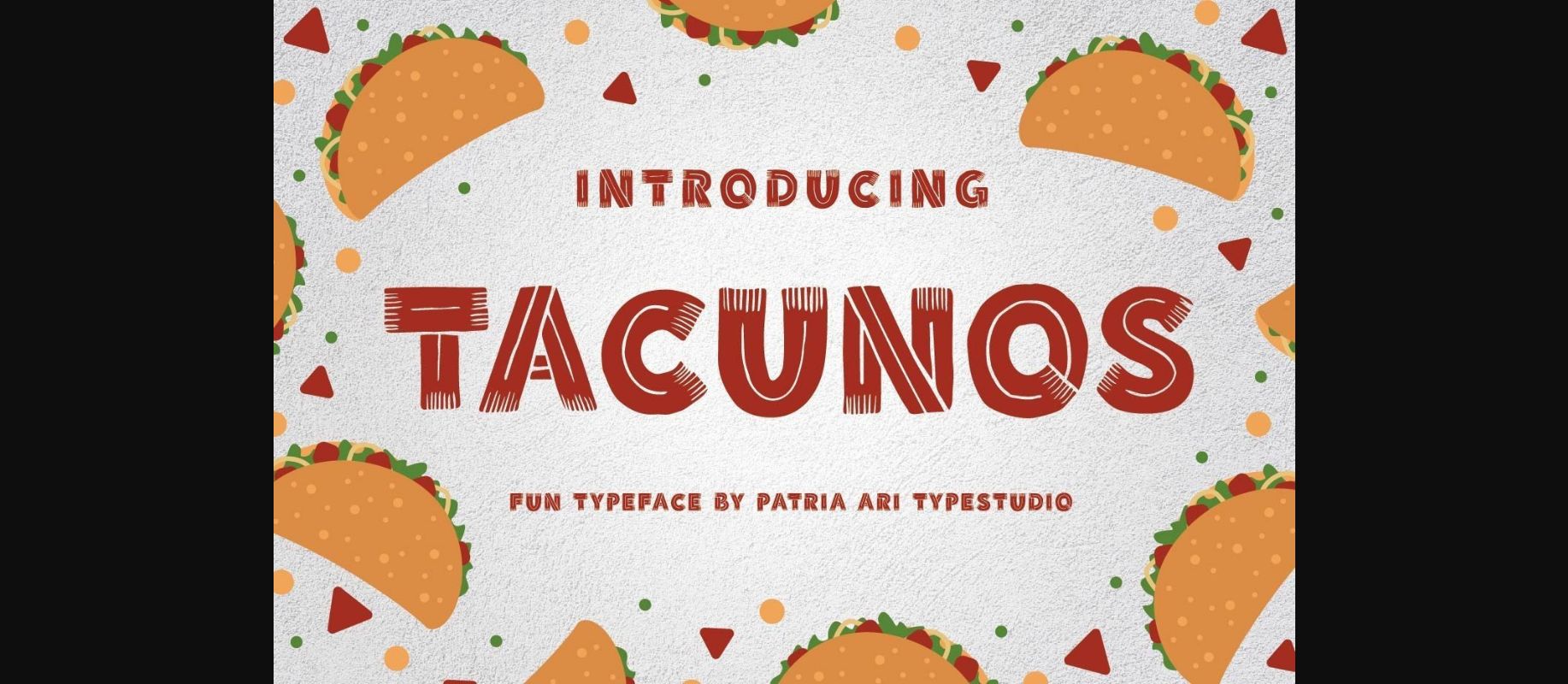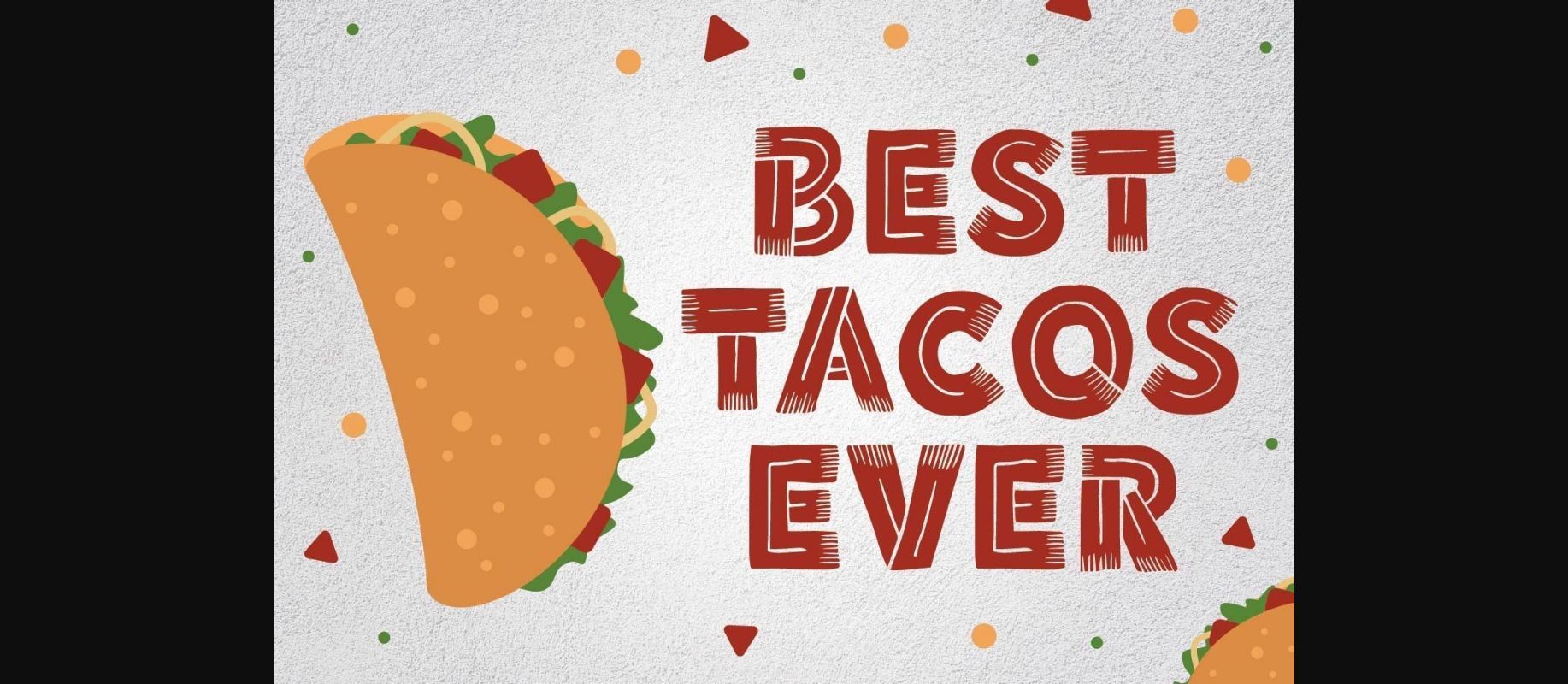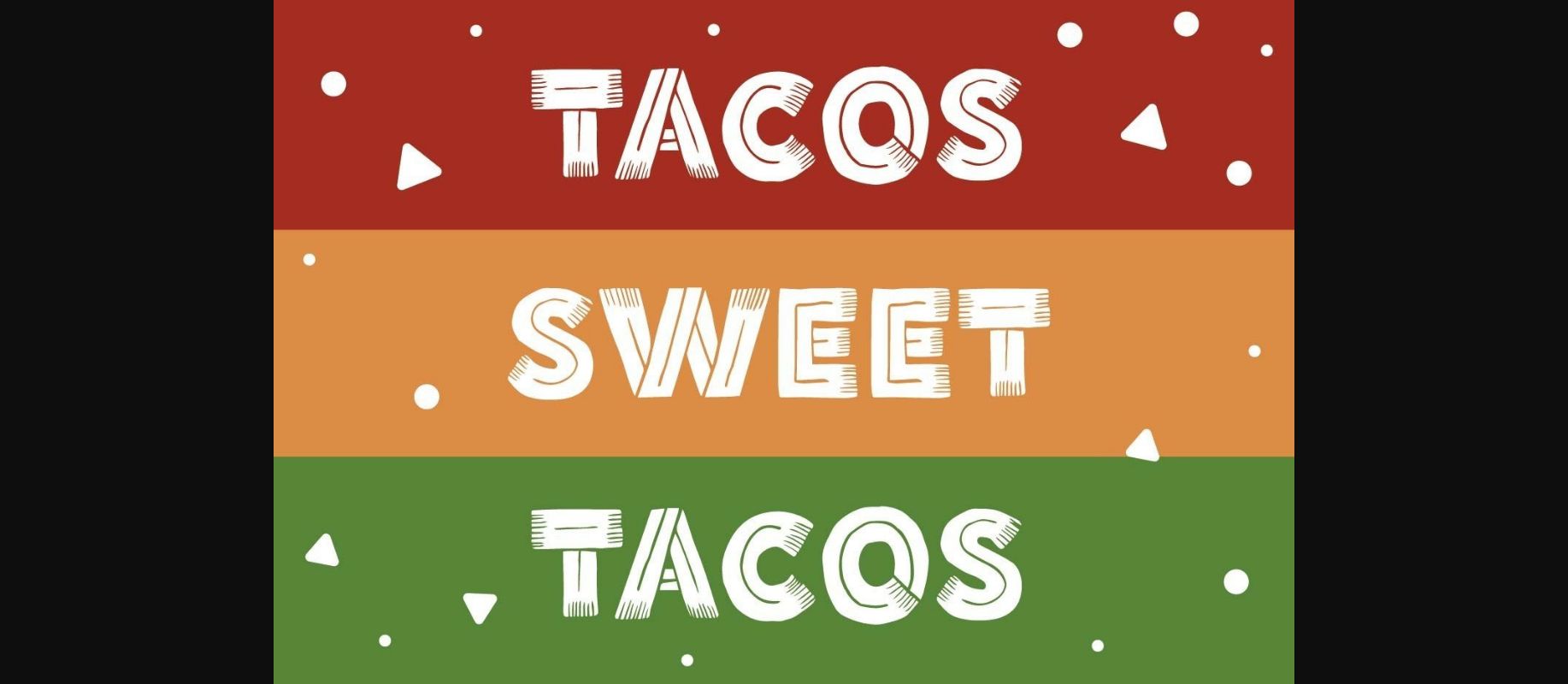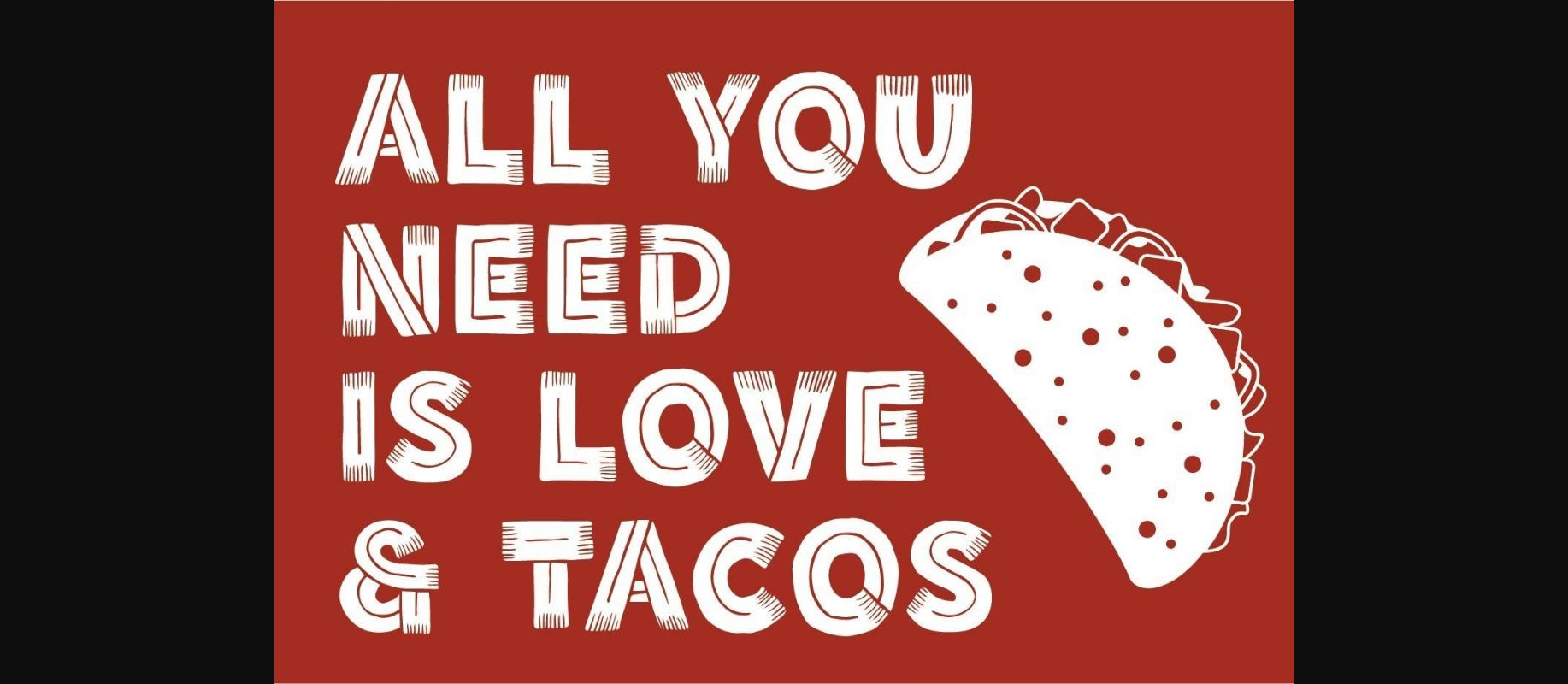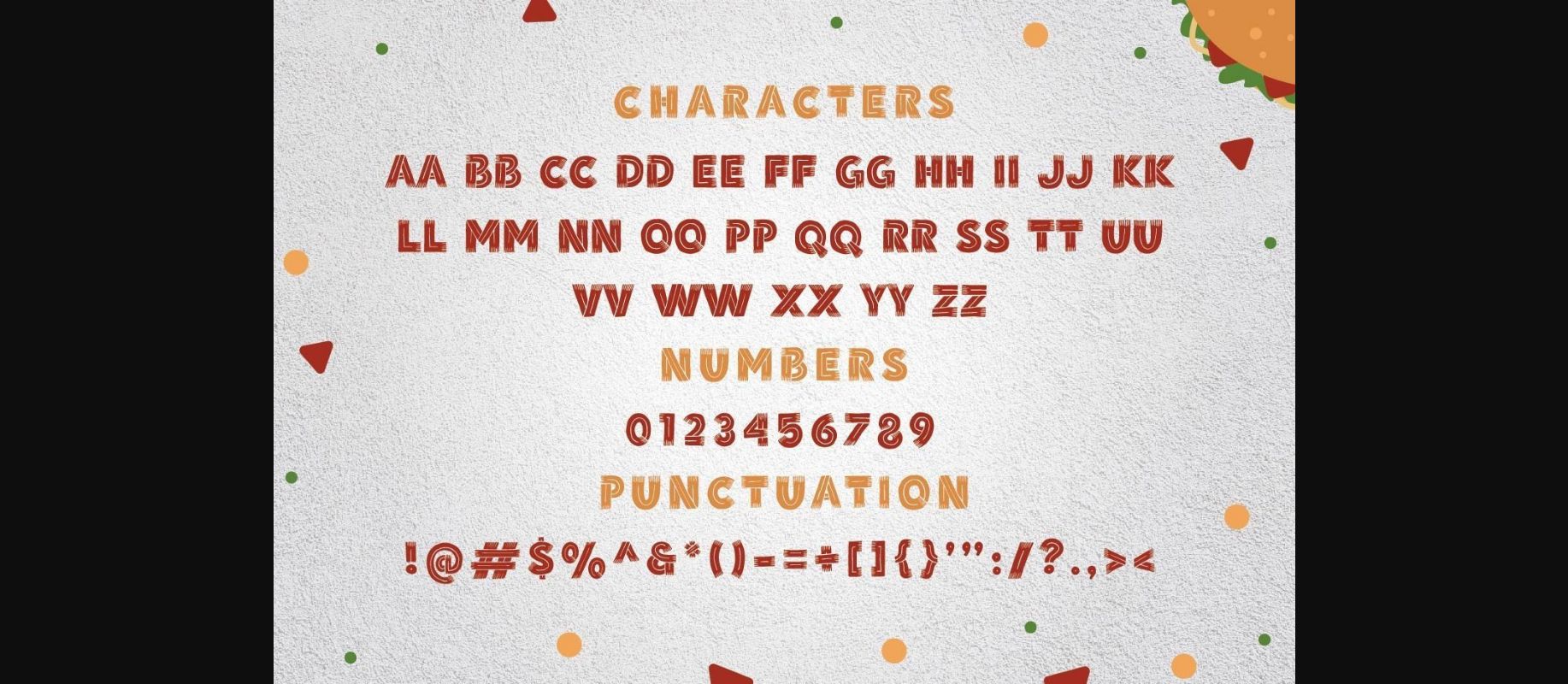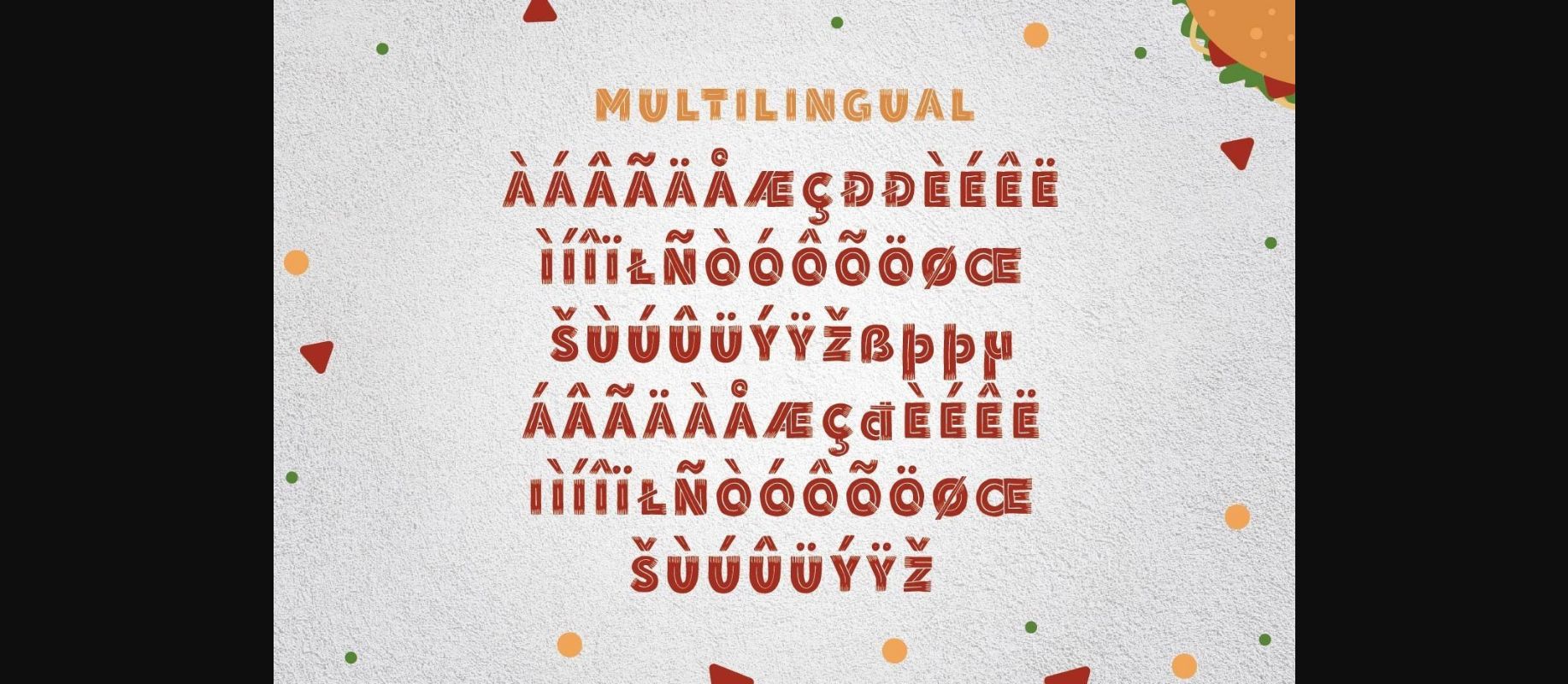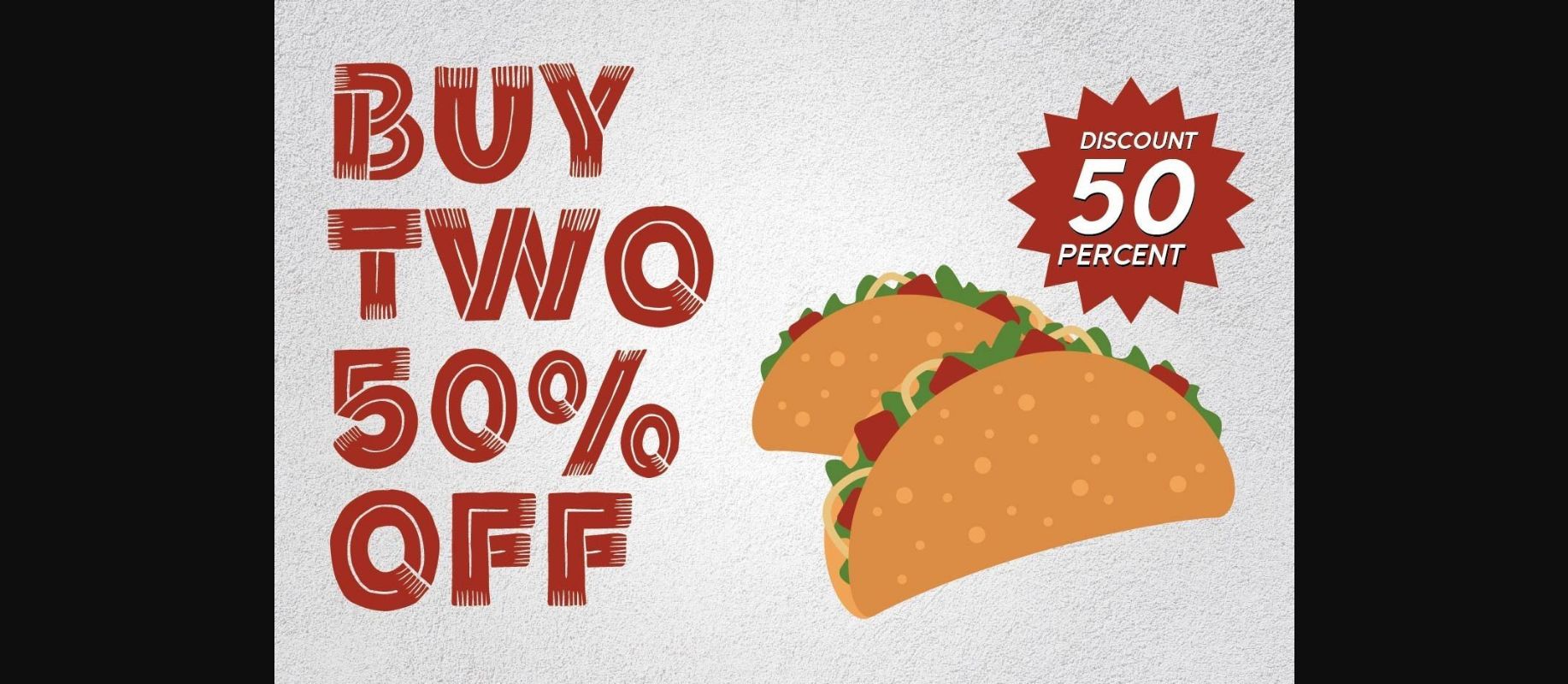
Tacunos Font
About Tacunos Font
Tacunos is a fun and inviting decorative font, perfect for crafty projects that need authentic typography! Use it for wedding invitations, birthday cards, personal branding, elegant logos, and more, and your designs will stand out.